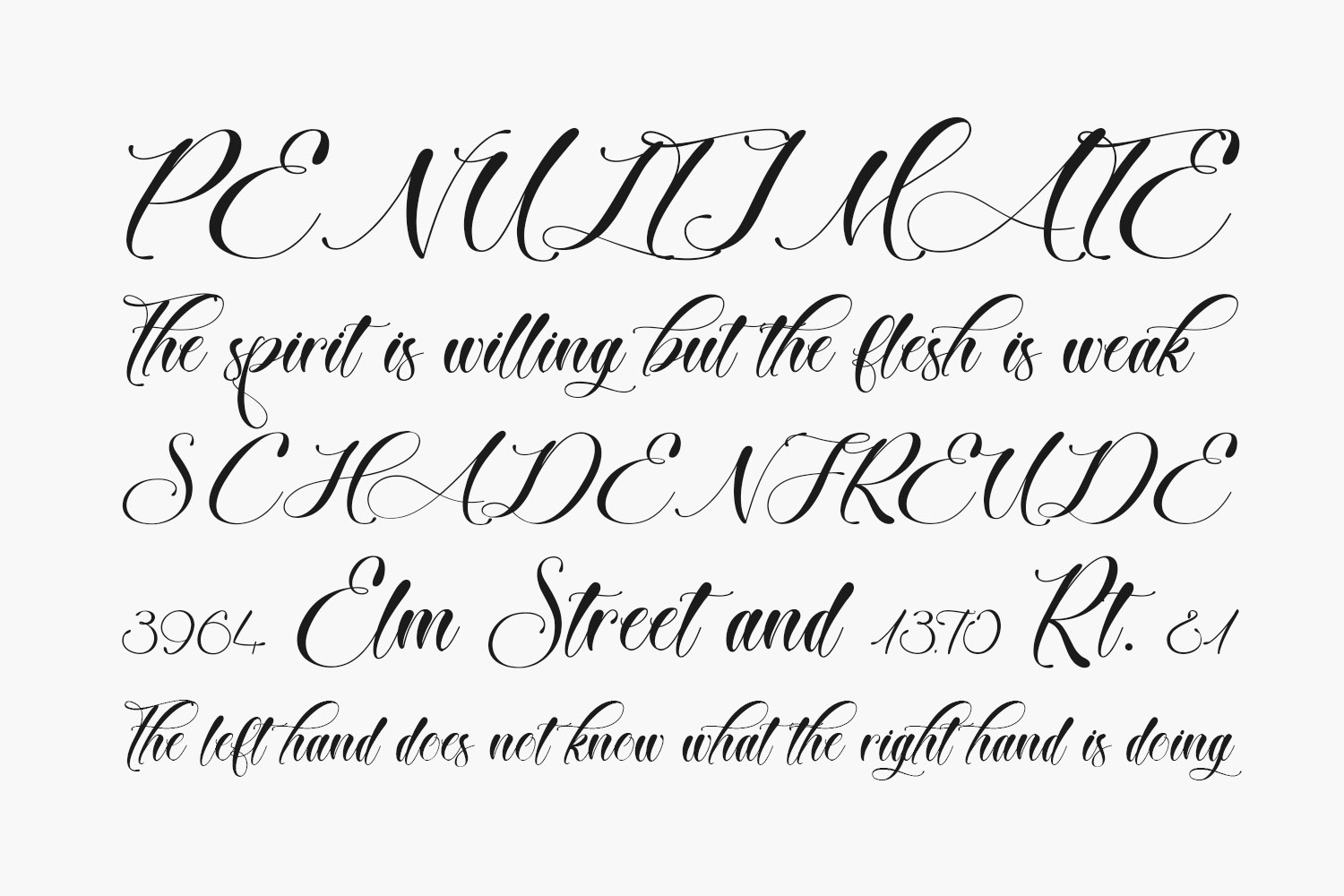
Broken Heart Free Font is a gorgeous, traditional calligraphy font. This pretty, swashy font looks perfect in romantic invitationals and adds a stunning vibe to a large range of print projects. was designed by Typhoon Type and is free for personal use only. Please purchase the full version for commercial use.